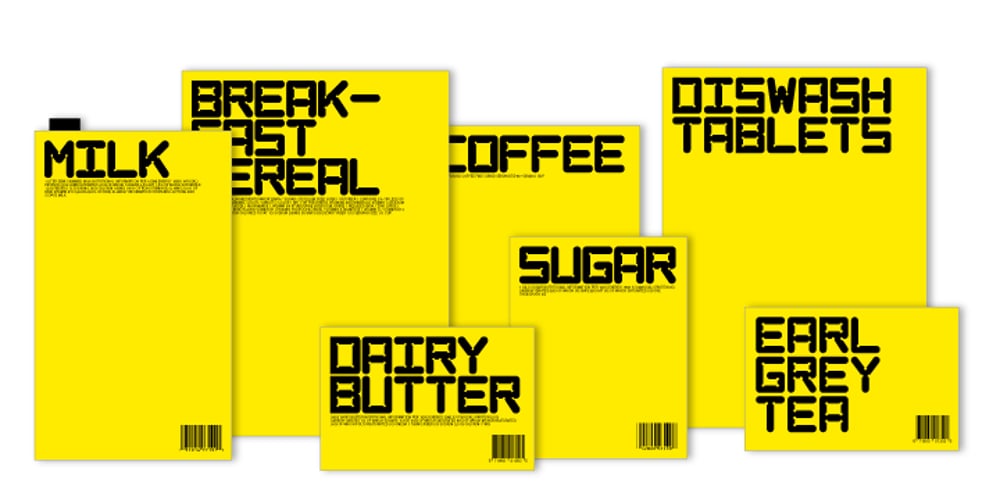
AT Move Artu Font Family was designed by André Toet, Jasper Nijssen and published by André Toet Design. AT Move Artu contains 2 styles and family package options. Artù ! Strano ma vero, strange but true. A beautiful, intelligent and lively Italian dog and a great friend, unfortunately no longer among us … but his memory lingers. A typeface designed in Rosennano (Tuscany), its Italian, but executed in Amsterdam. This monospace typeface might prove to be extremely useful for household products like washing powder or any anything like that. Just use it in your designs, let it live! Concept/Art Direction/Design: André Toet © 2017